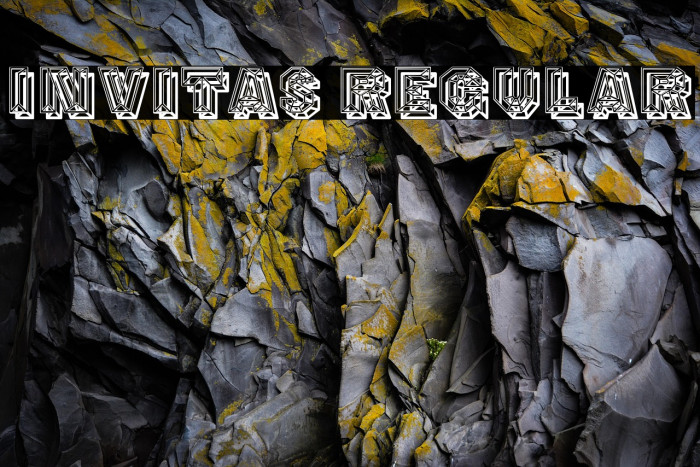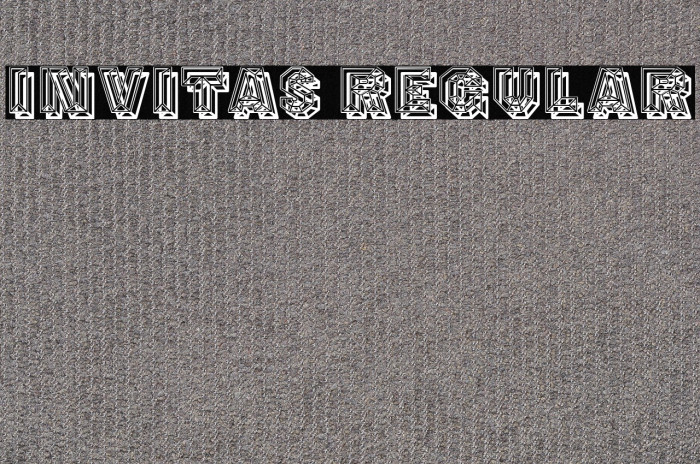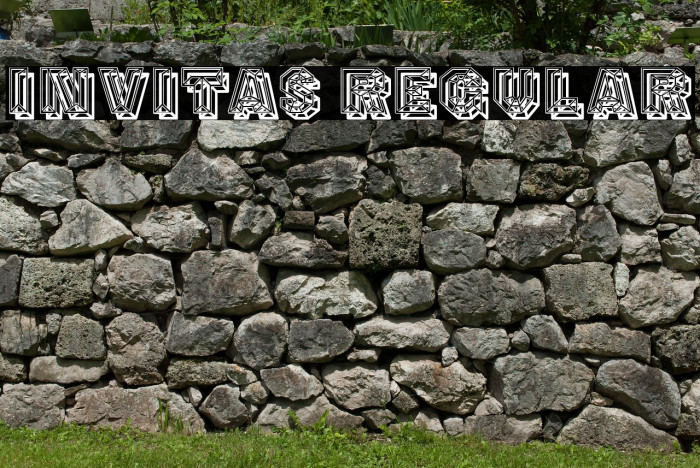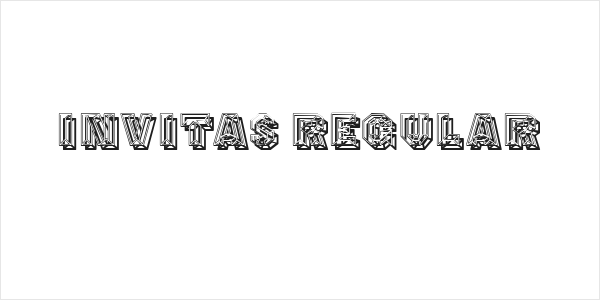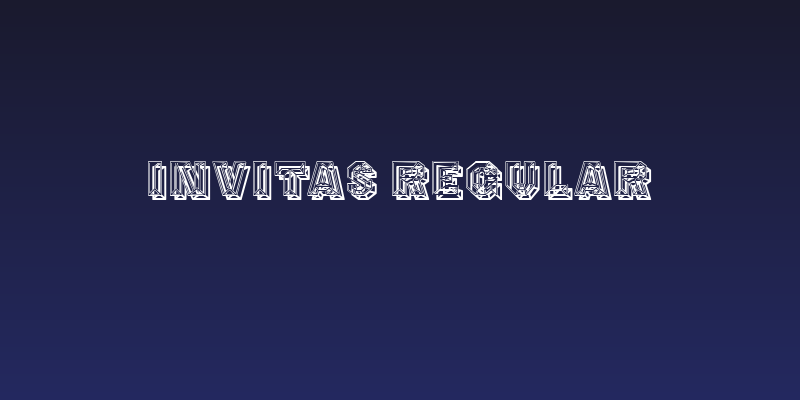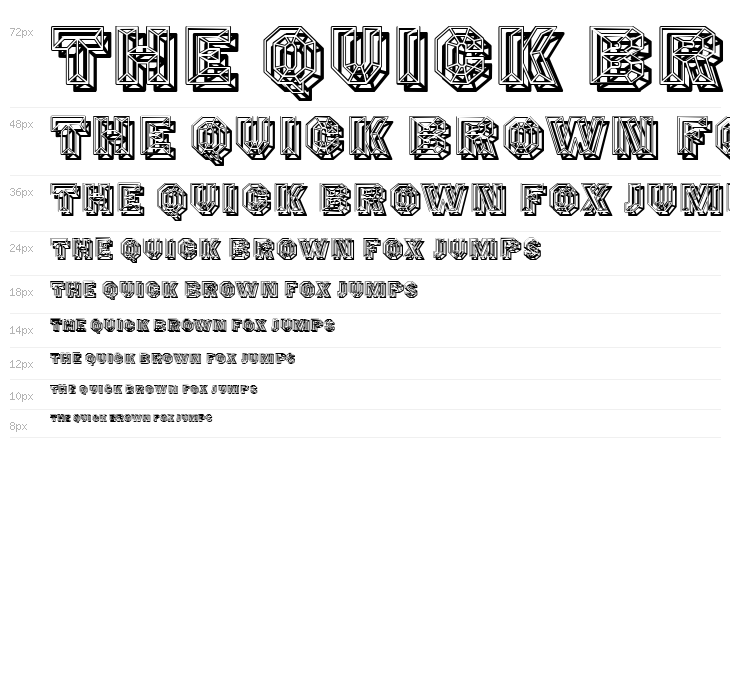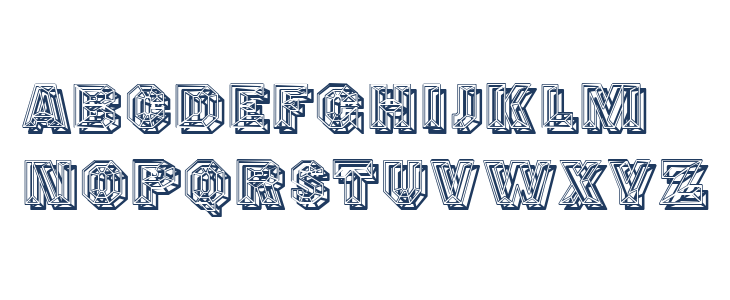
Invitas Regular Font
Invitas Regular Description
This font features a highly decorative and intricate design, characterized by its geometric and multi-layered structure. Each letter is composed of complex patterns and shapes, creating a three-dimensional effect that is both bold and eye-catching. The font's unique style is reminiscent of architectural designs, with a strong emphasis on symmetry and detail. Its elaborate appearance makes it suitable for projects that require a standout visual element. The font's artistic nature lends itself well to creative and unconventional uses, offering a distinctive look that can enhance any design project.
| Proposed Projects | Ideal for posters, album covers, branding, and any project needing a bold, artistic touch. |